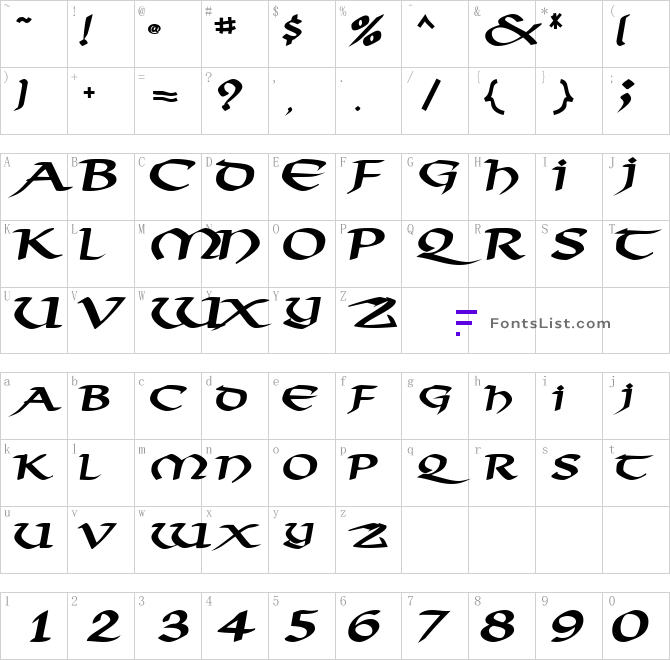
- Font Name:AmorosoSCapsSSK
AmorosoSCapsSSK-Bold.ttf is a very beautiful artistic font, AmorosoSCapsSSK-Bold.ttf is widely used in the design and printing of various books and pictures,AmorosoSCapsSSK-Bold.ttf has a strong visual impact,AmorosoSCapsSSK-Bold.ttf is a commonly used font in newspapers, magazines and books, and is used in posters, e-commerce Poster design, store design, logo design, font design and other fields.AmorosoSCapsSSK-Bold.